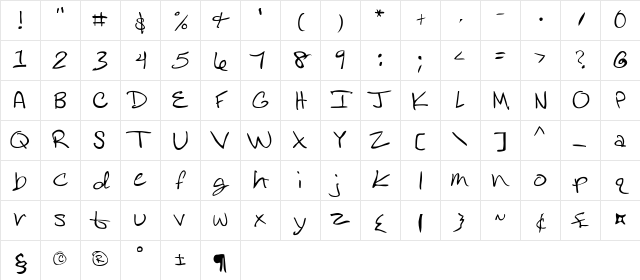
Rose DiFont Regular Free Font
Rose DiFont Regular
Foundry: Joshua Thompson
Designer: Joshua Thompson
Design Context for Rose DiFont
Rose DiFont is a composed and adaptable typeface that performs quietly and consistently across a wide range of design contexts.
Who designed the Rose DiFont Regular font?